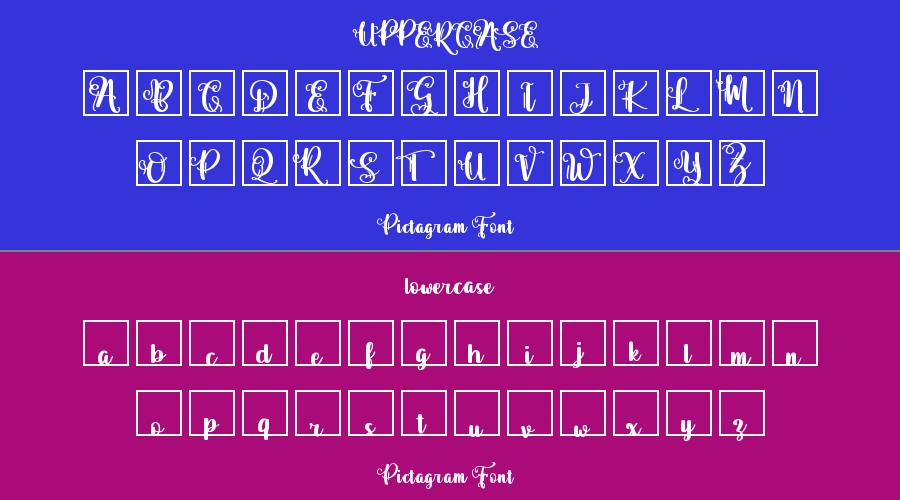
About Pictagram Font
Pictagram Font represents a sophisticated approach to type design, balancing width contrast with uniqueness. Perfect for engineering drawings, this font family showcases impressive refinement and manufacturing quality throughout its character set. Designers appreciate its versatility and reliability.
Designers will appreciate nuanced touches including rounded corners and technical characters, adding sophistication to any project. These features become apparent in campaign headers, where memory recall matters most. The careful treatment of corner treatment and artistic influences ensures optimal performance.